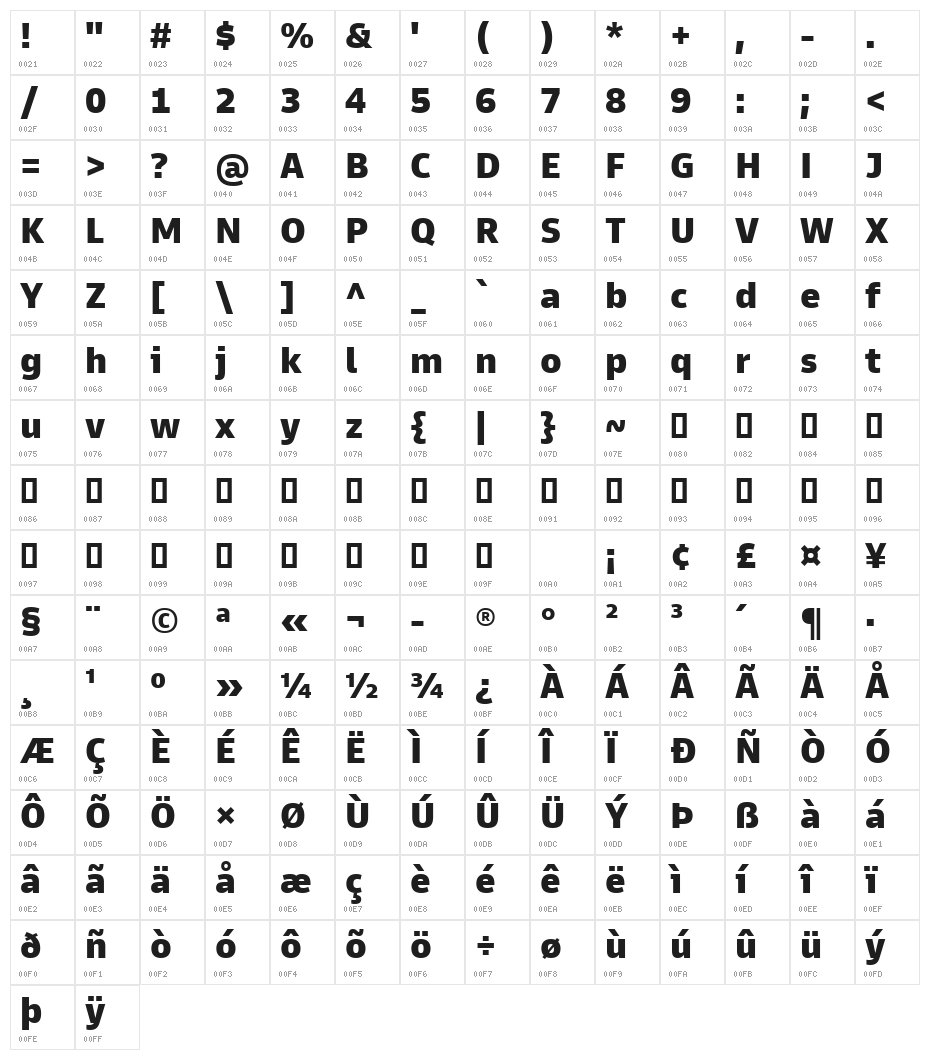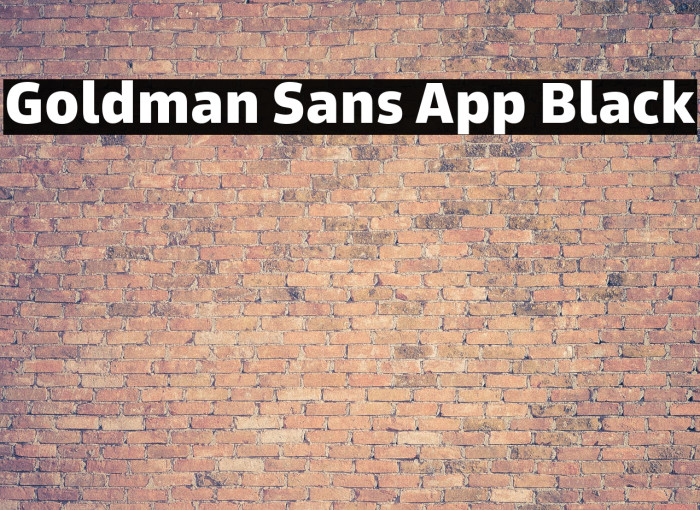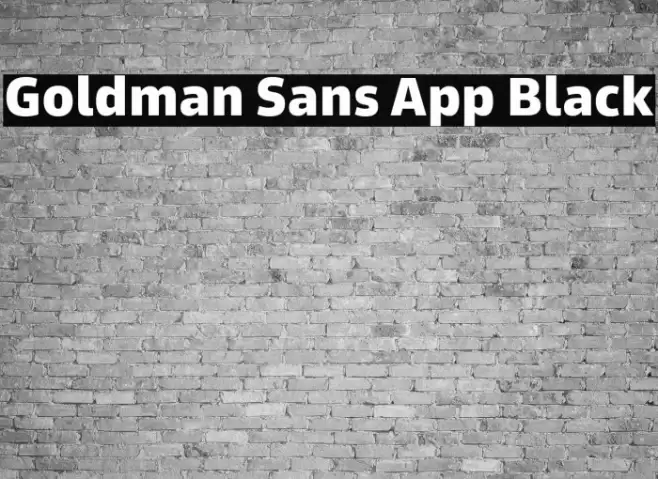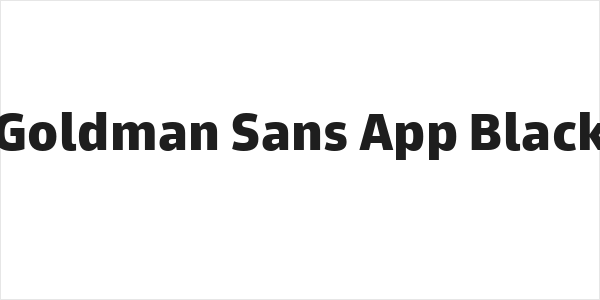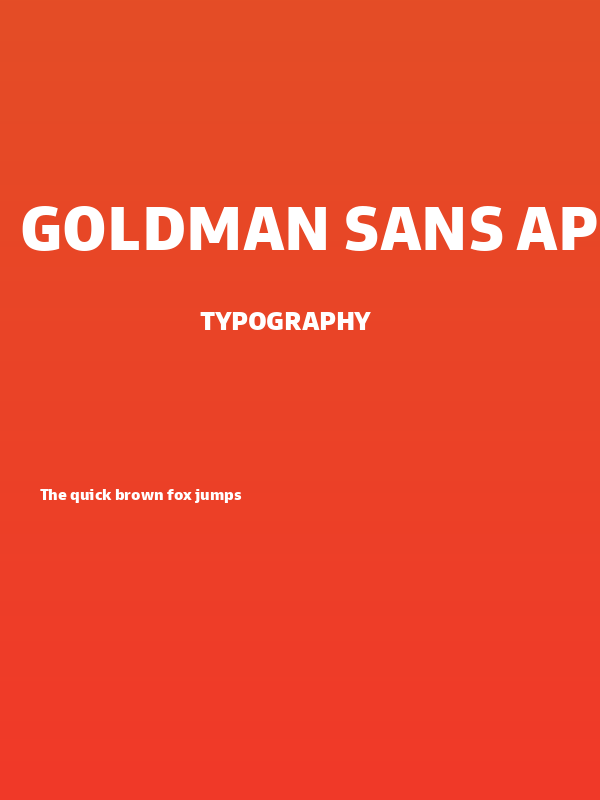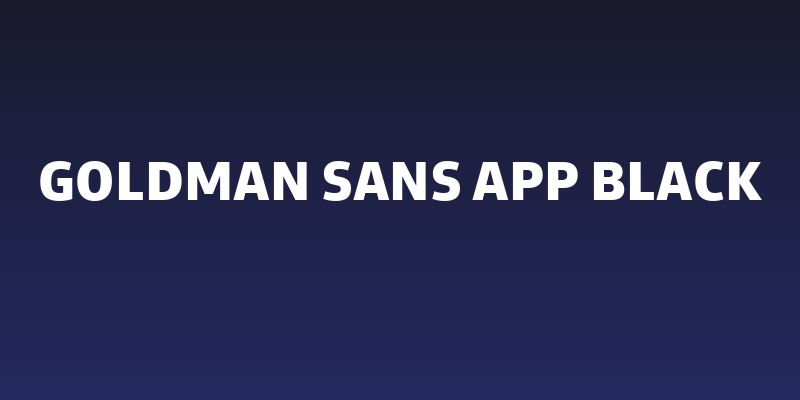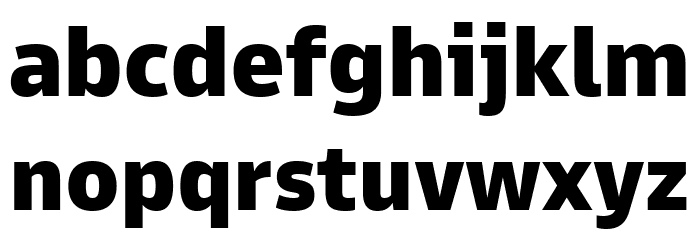
Goldman Sans App Black Font
Goldman Sans App Black Description
This font is a bold and modern sans-serif typeface with a strong presence. It features clean, geometric lines and a uniform stroke width, making it highly legible and versatile. The uppercase and lowercase letters are well-proportioned, with a consistent height and width that create a harmonious look. The numerals are clear and distinct, ensuring readability in various contexts. Special characters are included, maintaining the font's cohesive style. This typeface is suitable for digital and print media, offering a contemporary and professional appearance.
| Use Case | Headlines, Logos, Digital Interfaces |
| Proposed Projects | Ideal for branding, advertising, headlines, and digital interfaces. |